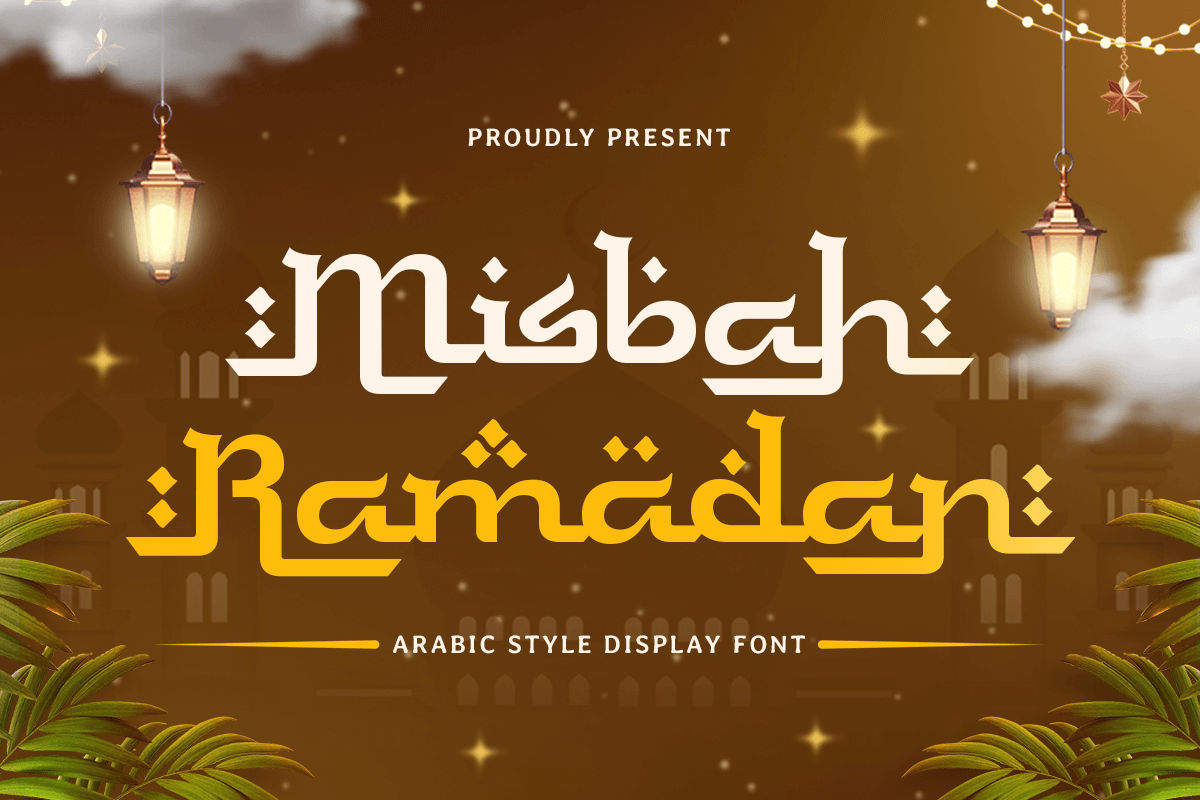
Misbah Ramadan
-Islamic Arabic Font
Misbah Ramadan - Islamic Arabic Font
Misbah Ramadan is an Islamic Arabic style display font crafted to deliver a warm, festive, and culturally rich atmosphere for your typography. Inspired by Arabic-influenced forms and ornamental display aesthetics, this font brings bold character that feels spiritual, elegant, and celebration-ready—perfect for seasonal campaigns and cultural branding.
Designed for high-impact visuals, Misbah Ramadan works beautifully across Ramadan promotions, Eid announcements, event posters, social media graphics, packaging, signage, banners, menus, and headline typography. Its decorative rhythm helps your message stand out instantly while maintaining a refined, respectful tone suited for Islamic themes and Middle Eastern-inspired design.
Whether you’re building Ramadan-themed brand identity, creating festive marketing assets, designing charity event visuals, or producing product labels with Islamic elegance, Misbah Ramadan provides a powerful display style that feels authentic, memorable, and visually uplifting.
Inspiration Behind Misbah Ramadan
Misbah Ramadan is inspired by Islamic ornamental traditions and Arabic calligraphic influence—where rhythm, geometry, and cultural identity shape meaningful communication. The design focuses on bold display impact and decorative refinement to support Ramadan and Eid visuals with a modern, celebratory spirit.
Misbah Ramadan Font Features:
• Islamic Arabic-style display letterforms with ornamental character
• Strong headline presence for Ramadan and Eid campaign design
• Ideal for posters, banners, packaging, menus, and festive branding
• Ramadan promotions, Eid greetings, and Islamic event branding
• Posters, banners, social media campaigns, and festive headlines
• Packaging, labels, gift boxes, and seasonal product visuals
• Restaurant menus, café branding, and Middle Eastern-themed signage
• Community events, charity campaigns, and cultural design projects
Celebrate the season with Misbah Ramadan—an Islamic Arabic-style display font made for festive, meaningful design. 🌙✨